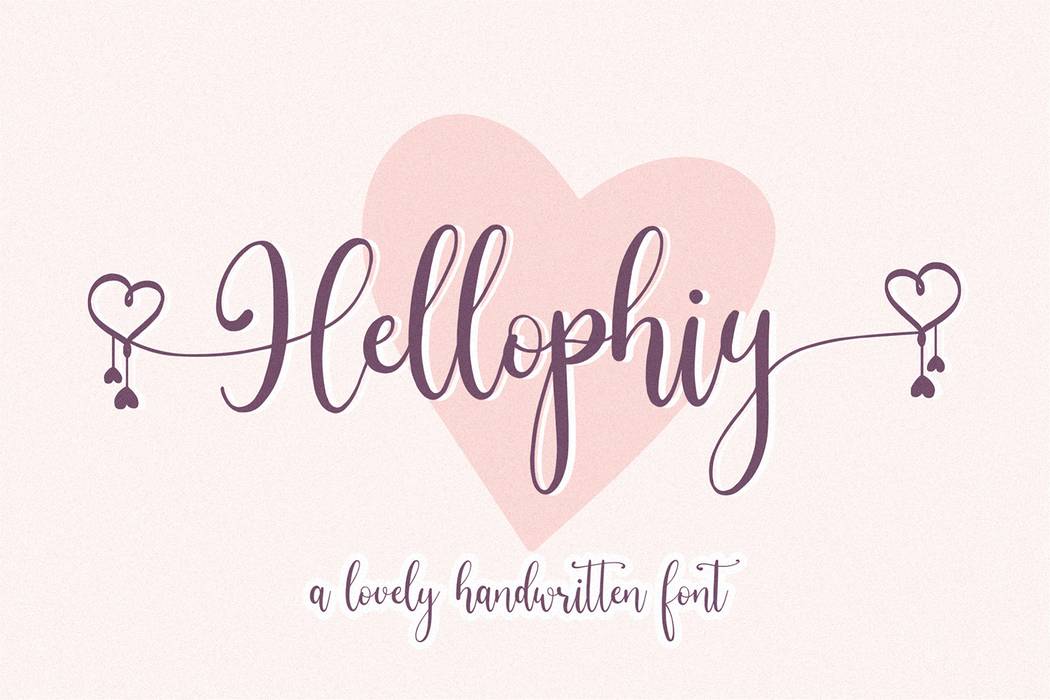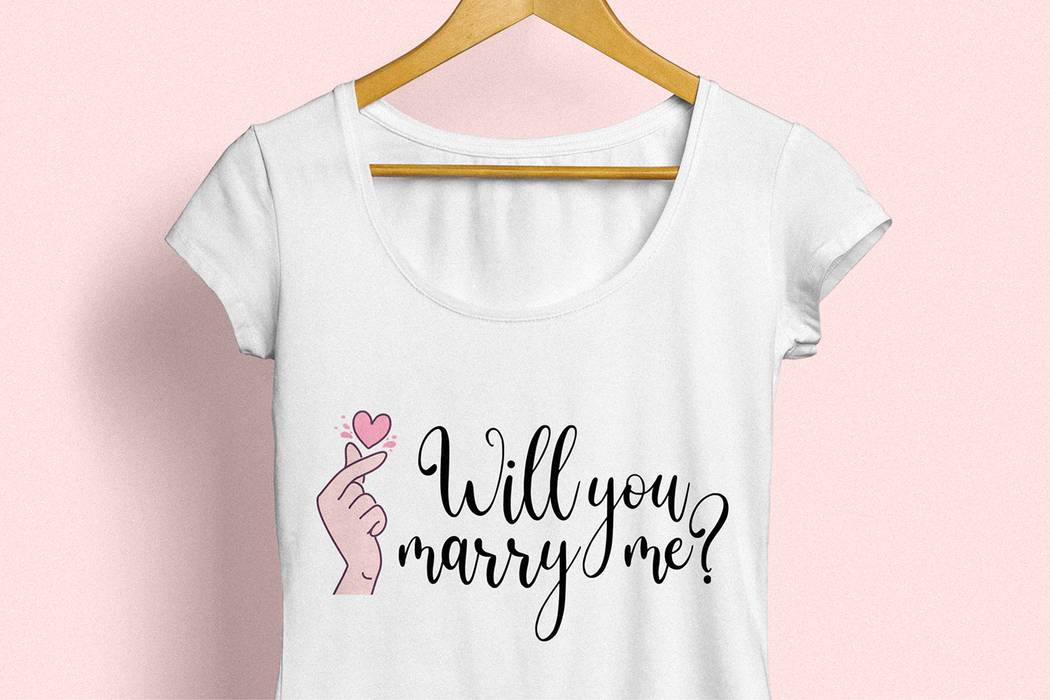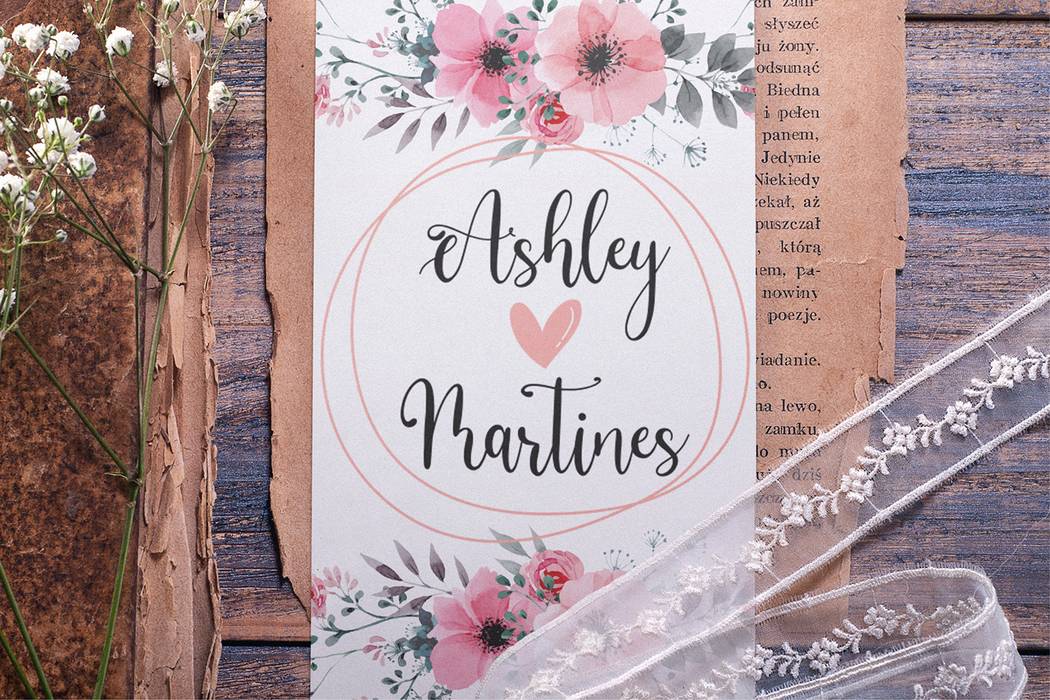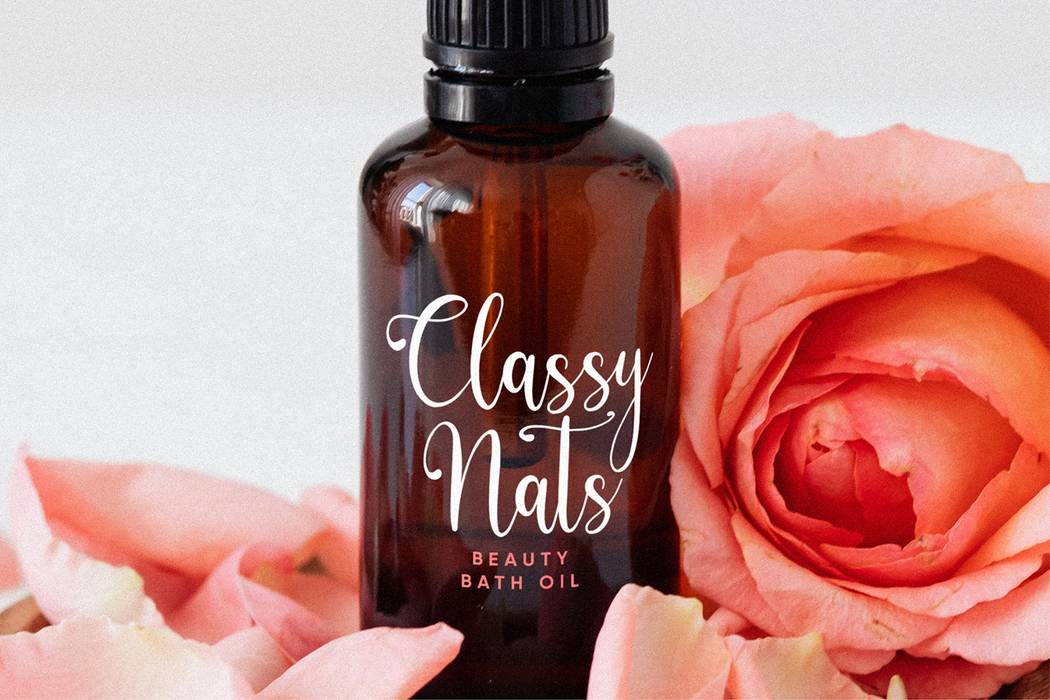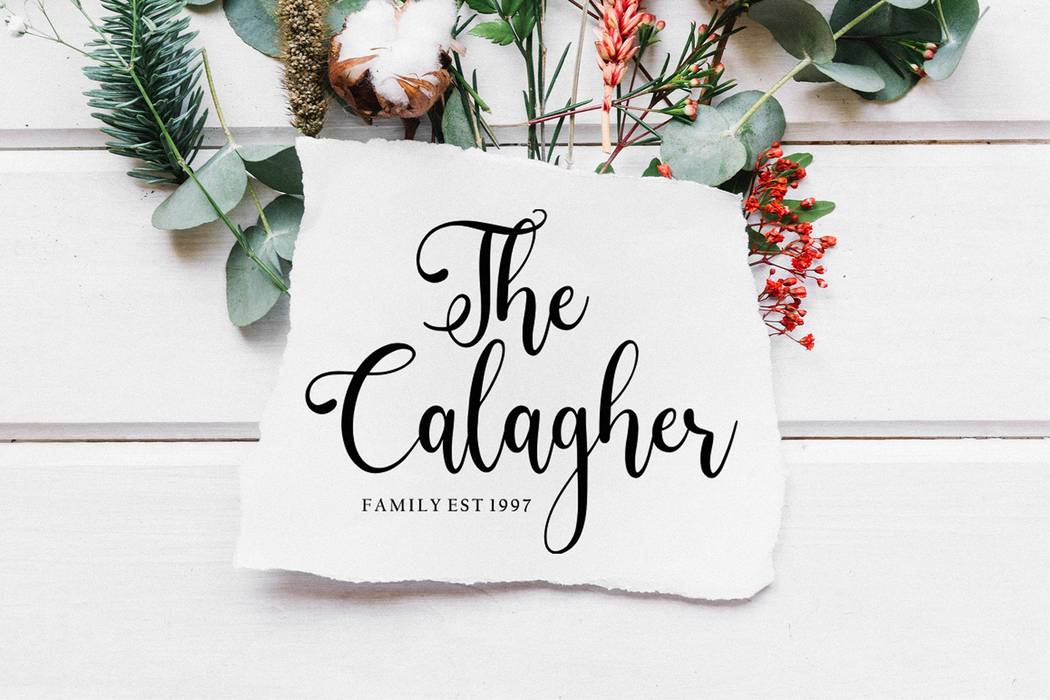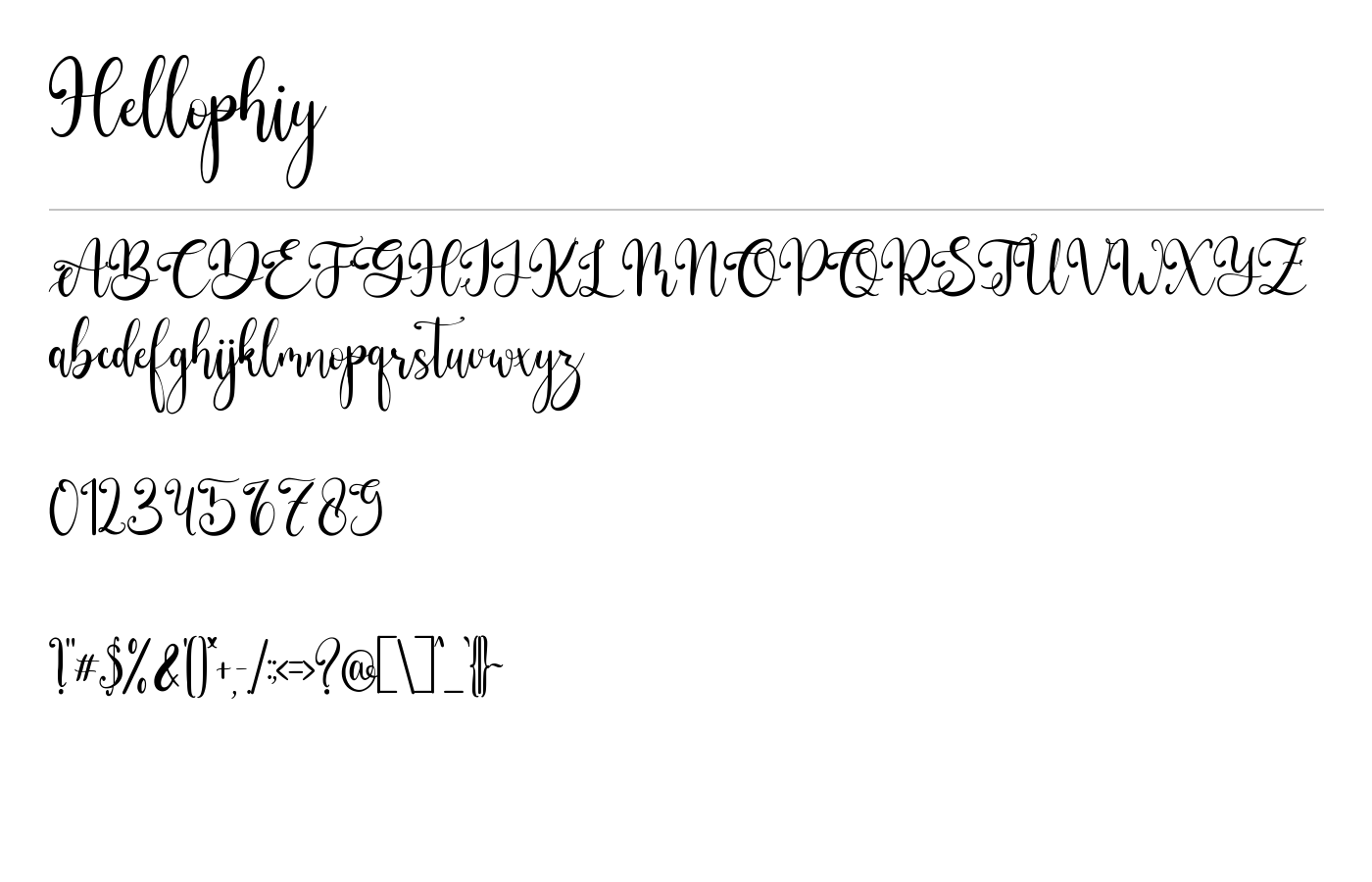
Hellophiy is an elegant script font characterized by its fluid, calligraphic strokes and delicate, high-contrast lines. With a refined and playful personality, it features tall, flowing letterforms that blend sophistication with a handcrafted feel, making it perfect for invitations, branding, and stylish headlines. Its artistic charm works well for luxury or creative projects aiming to convey warmth and elegance.
Hellophiy Font